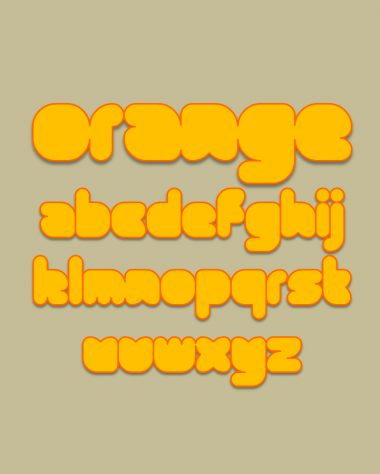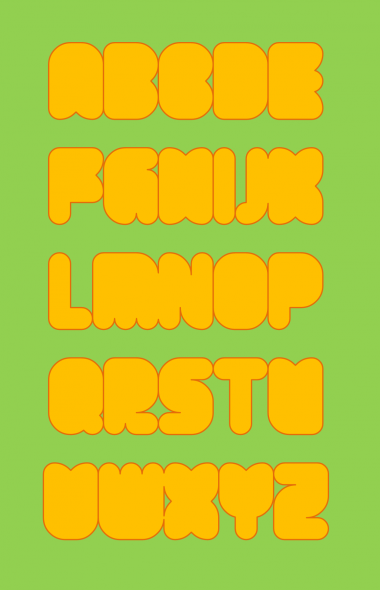
orange
a small, plump font and my first use of the nudging feature.
Interesting and fun.
Makes me hungry :)
nice font and sample, but I would like to see some real capital letters.
proper caps now added:
also numbers:
Very nice! Glad you had time to add caps.